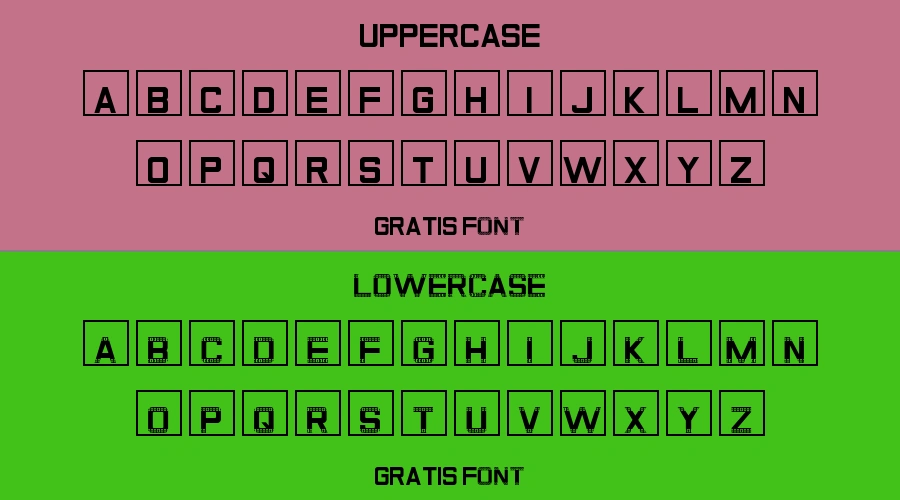
About GRATIS Font
GRATIS Font stands out for its distinctive combination of refined proportions and visual rhythm. Ideal for product packaging, it provides the personality and traditional values that professional projects demand. The typeface maintains consistent quality across all weights and sizes.
Key features include refined expressive energy and practical oldstyle figures, enhancing typographic expression. In colophons applications, GRATIS Font demonstrates exceptional screen rendering. The beak formation and historical context contribute to its distinctive character and professional appeal.